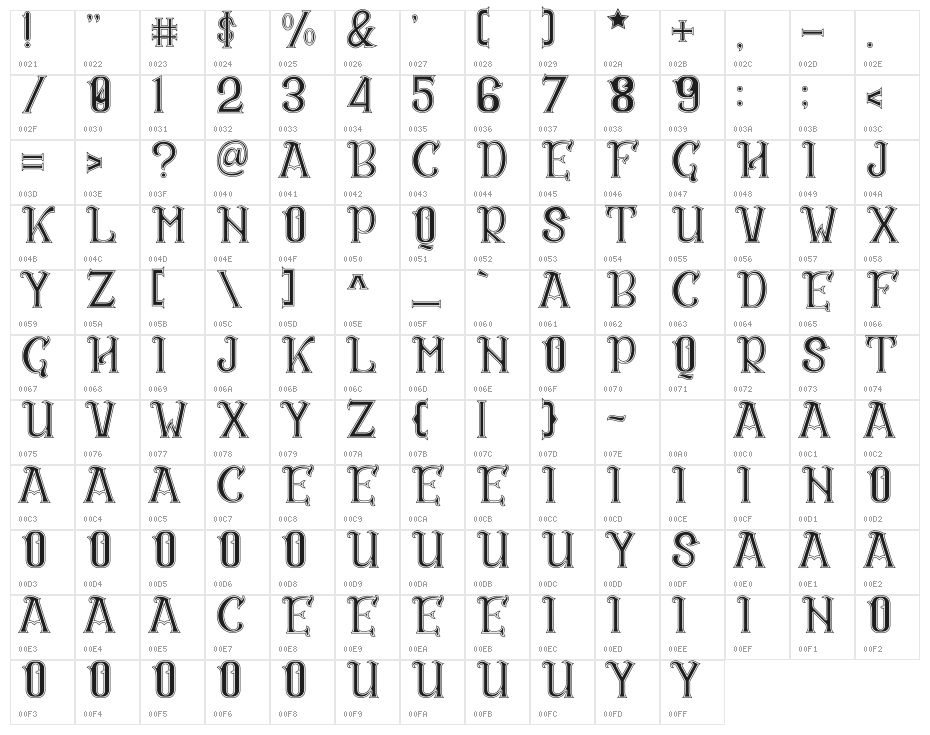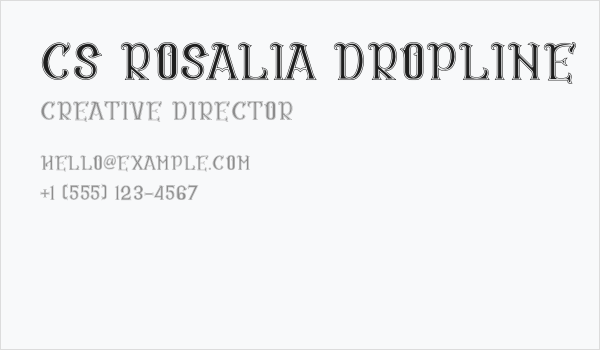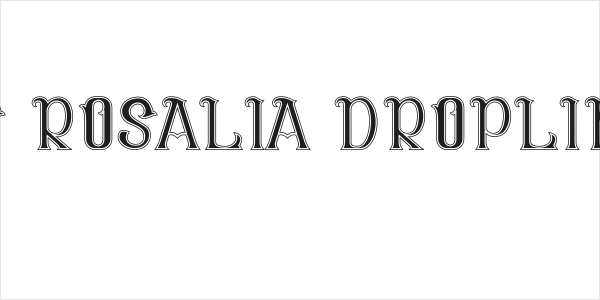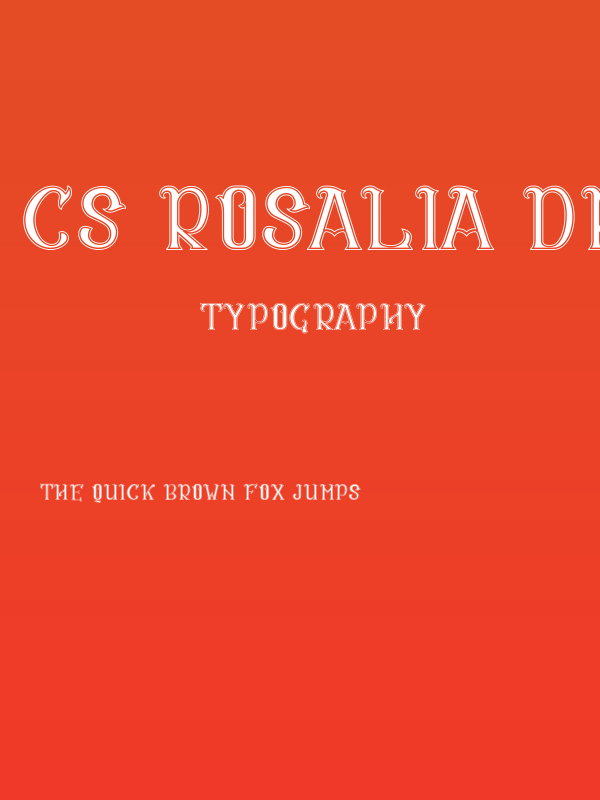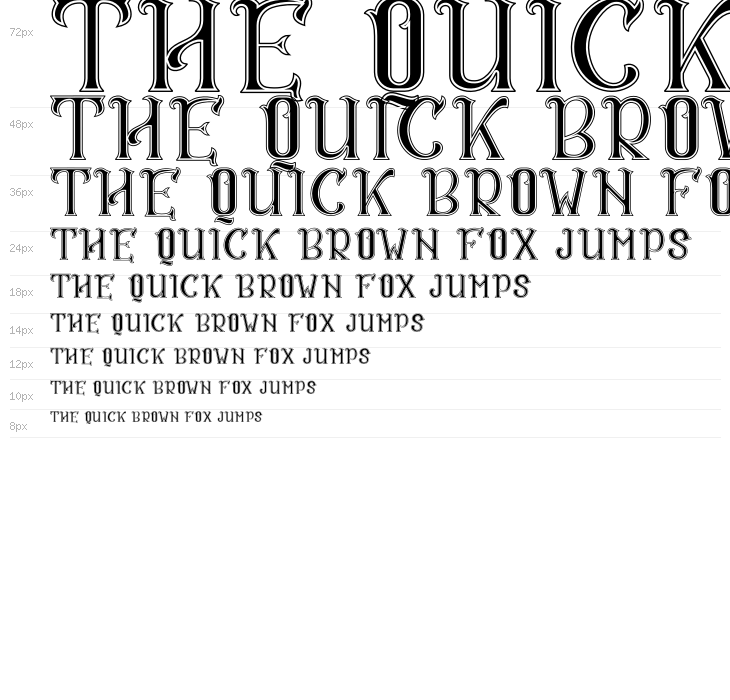
CS Rosalia Dropline Font
CS Rosalia Dropline Description
This font features a decorative style with a unique dropline shadow effect that adds depth and dimension to each character. The uppercase and lowercase letters maintain a consistent design, with elegant curves and sharp serifs that give it a classic yet modern feel. The numbers and special characters are equally stylized, ensuring a cohesive look across all text elements. The intricate detailing in the shadowing creates a sense of movement and sophistication, making it ideal for eye-catching designs.
| Proposed Projects | Ideal for branding, poster designs, invitations, and any project requiring a touch of elegance and sophistication. |